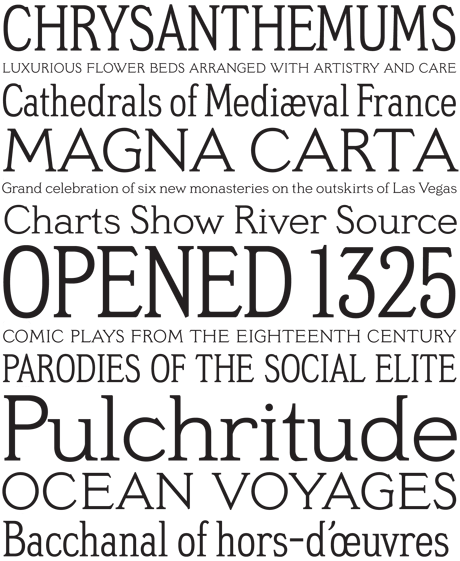
Font Fetish: Meyer Two
This blog isn’t always about recently released typefaces, and this entry proves it by going back to a family David Berlow released in 1994 that was inspired by faces popular in the early part of the 20th century.
Meyer Two, which comes in Condensed and Regular weights, is meant to evoke silent films’ intertitles; that is, the words that appeared between the film clips and served as dialog and narration. You can buy the family for $80 at Font Bureau’s Web site.